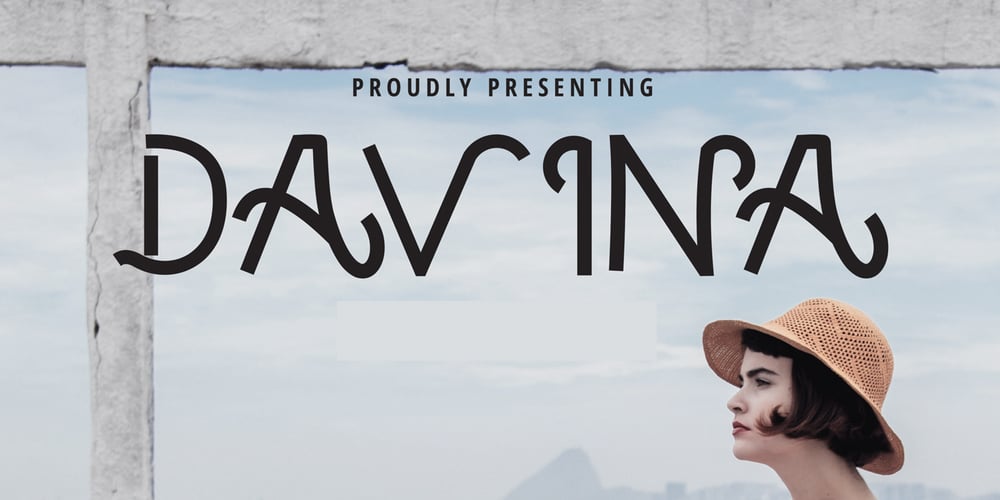
Davina
Davina font
Davina Font Family was designed by Andrea Zudip Aggasi and published by Nirmalagraphics. Davina contains 1 styles and family package options. I made Davina for display purposes and it can be used for logos with a vintage style, for flyers, brochures, leaflets and more. If you like a logo with a semi-vintage style, thick, unique and clean, it means you have to buy and use Davina! This font also has Multi-Lingual support and more than 15 Ligatures.